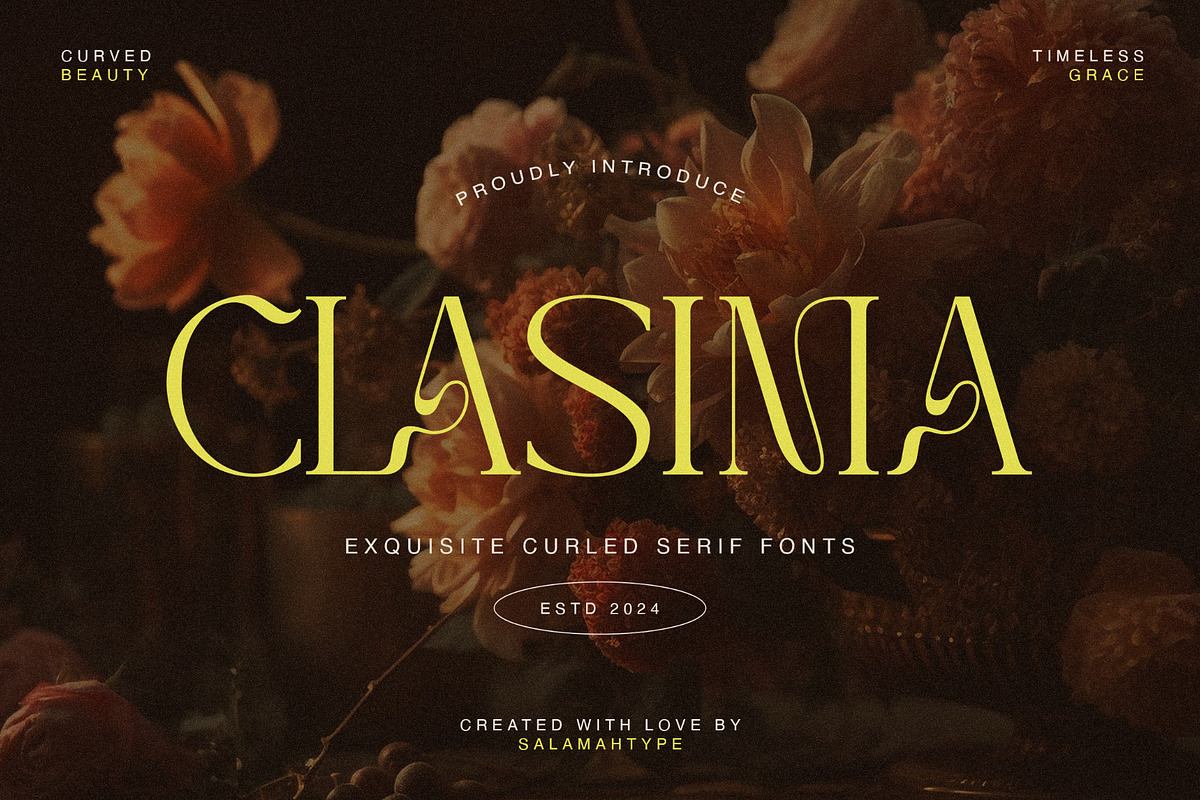
Clasima - Elegant Font Free Download
Please note, to use this font for commercial purposes, you must purchase the full version. Clasima is a refined and elegant font that combines classic letterforms with a modern twist. Perfect for logos, branding, invitations, and high-end projects, this font brings sophistication and beauty to any design. Whether you're designing for a luxury brand, a chic event, or a timeless product, Clasima adds a graceful and professional touch to your work. Test it out and enjoy free download access for personal use. Experience the stylish elegance of Clasima - Elegant Font Free Download before purchasing the commercial license. Add a polished, classy touch to your designs with Clasima.